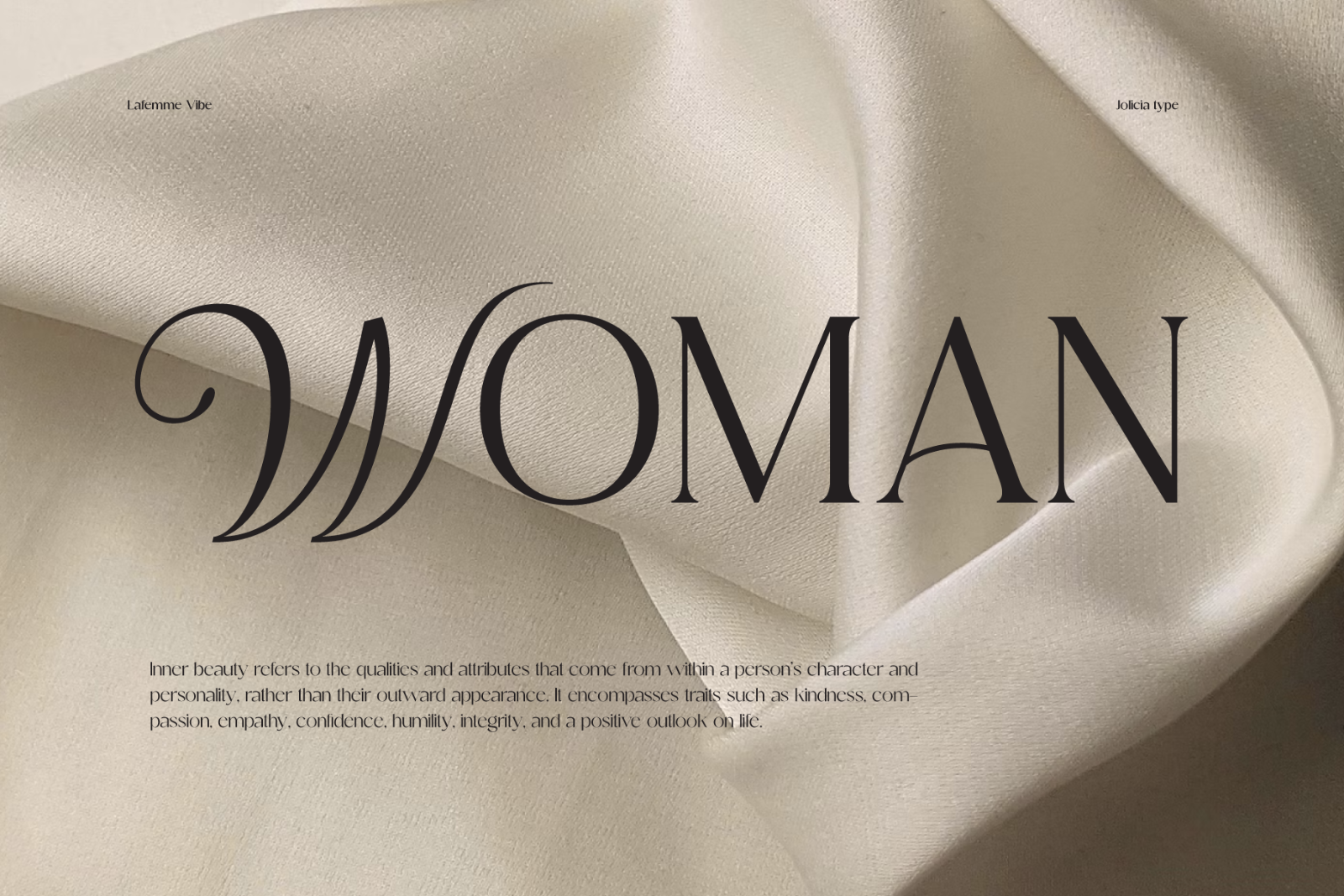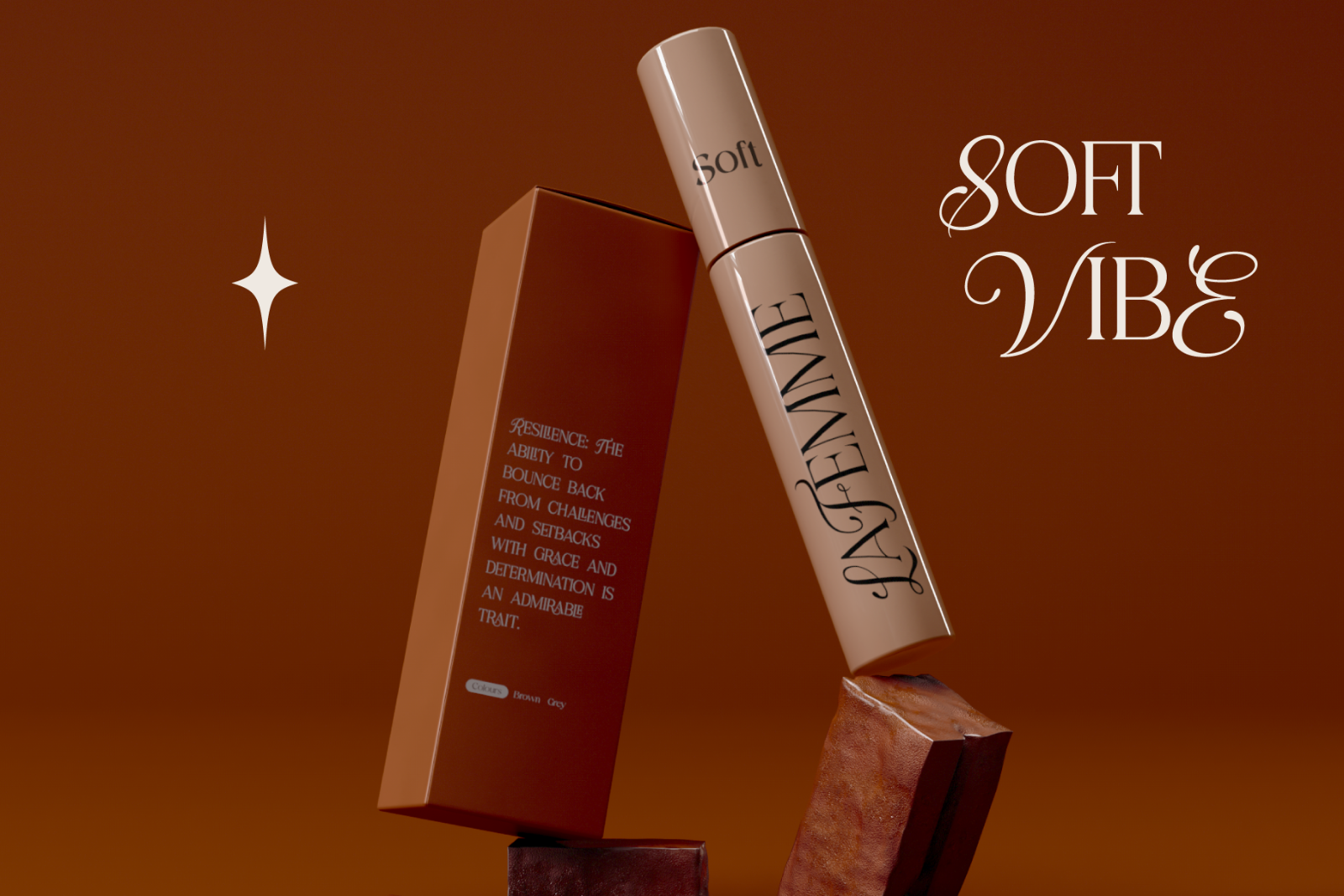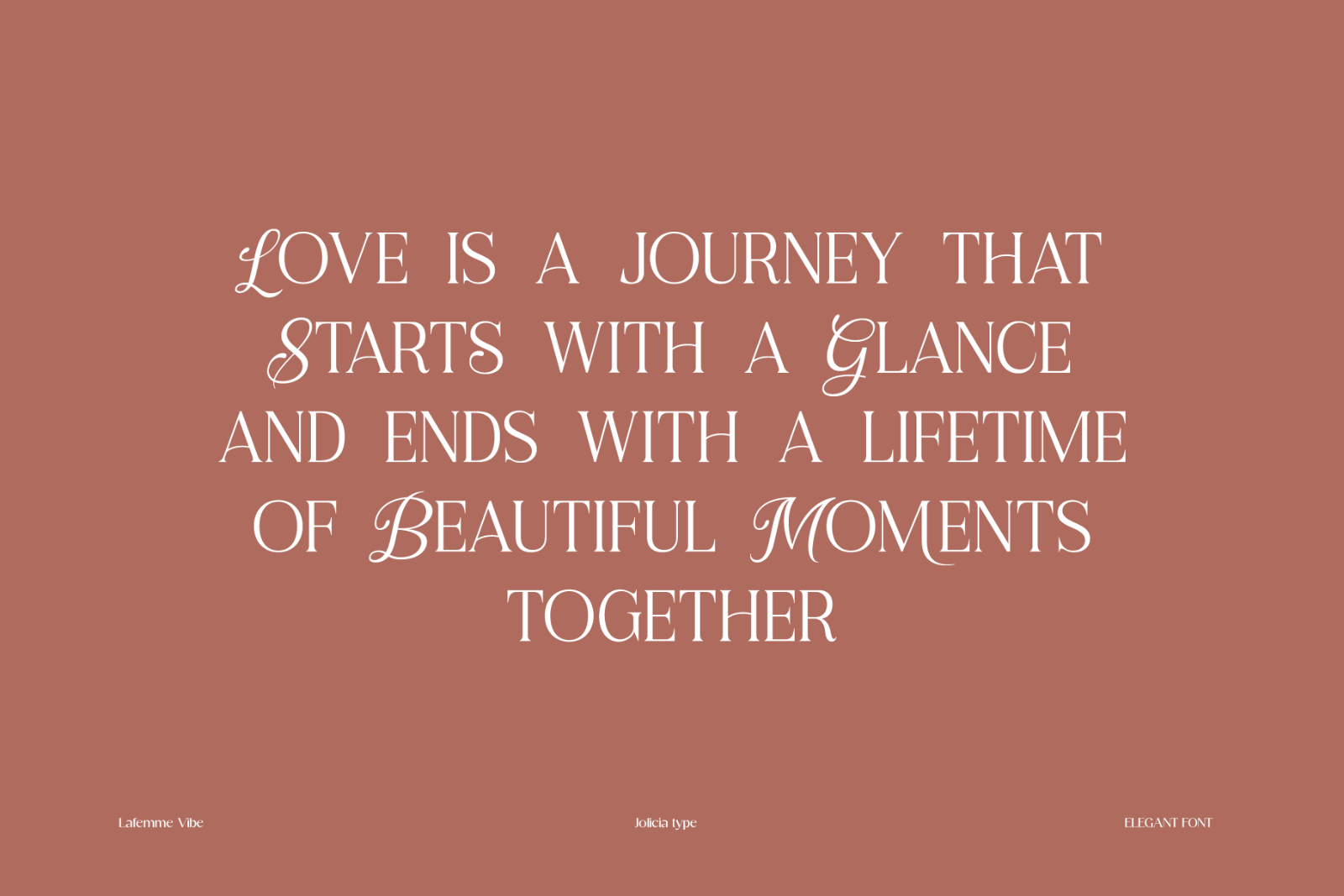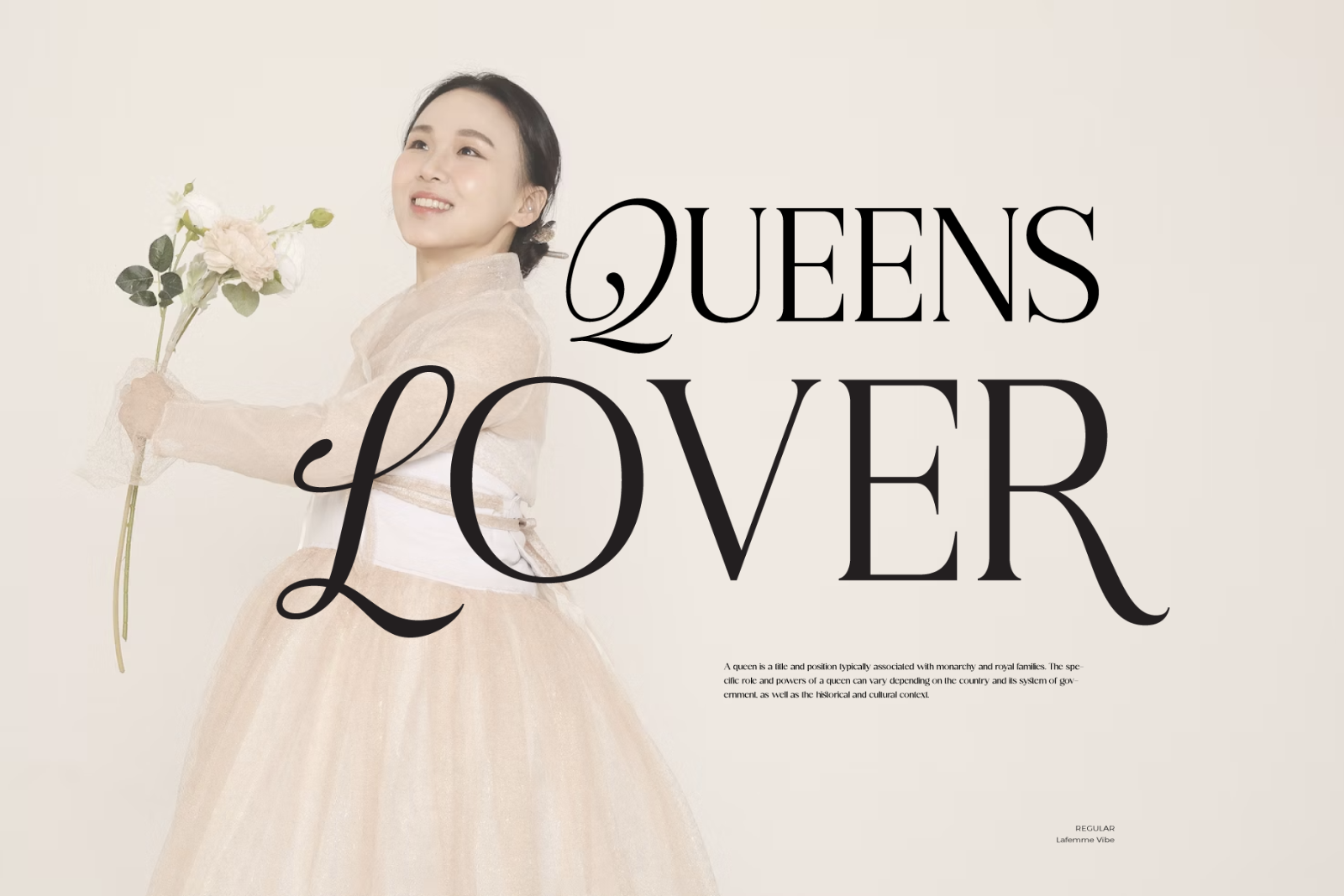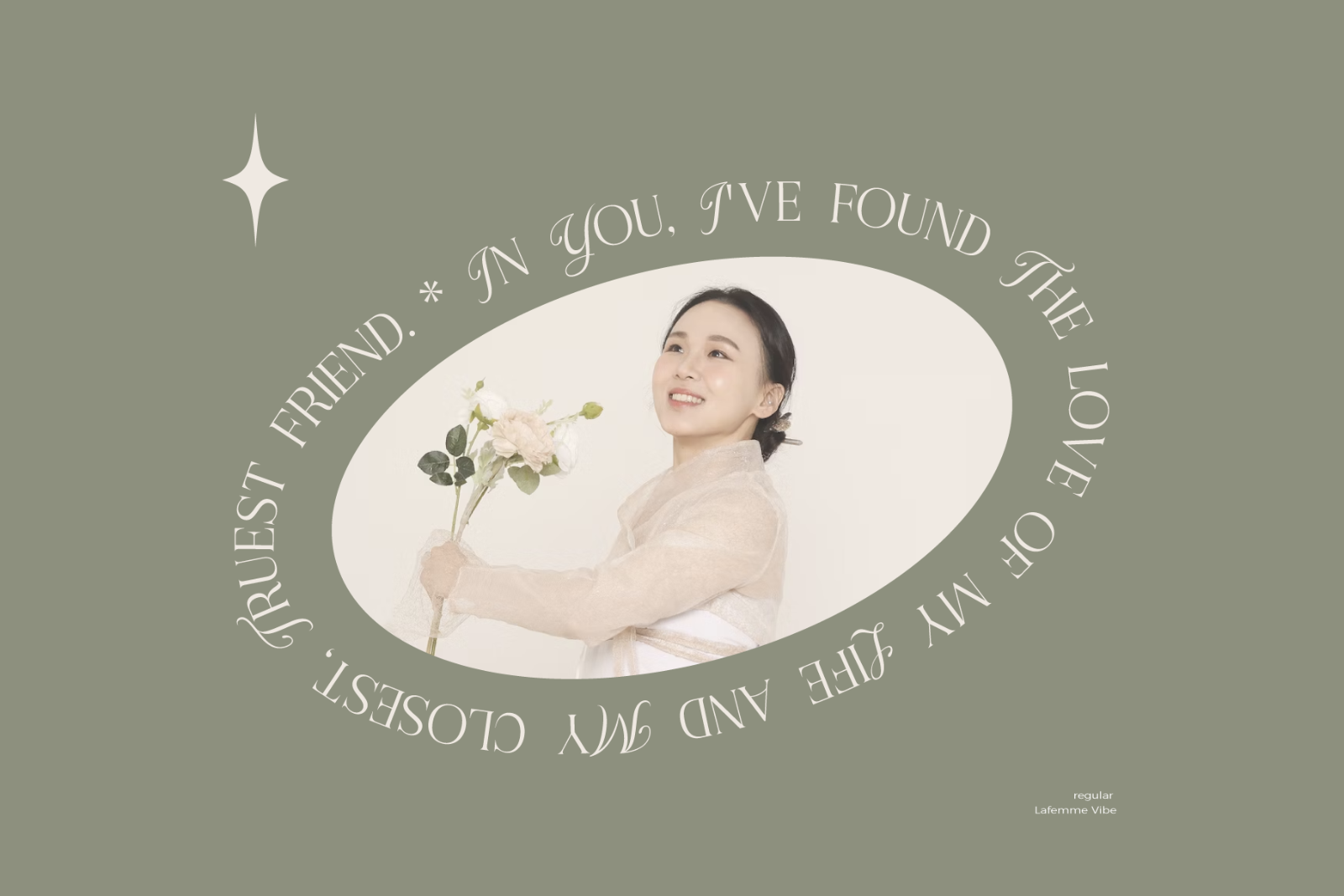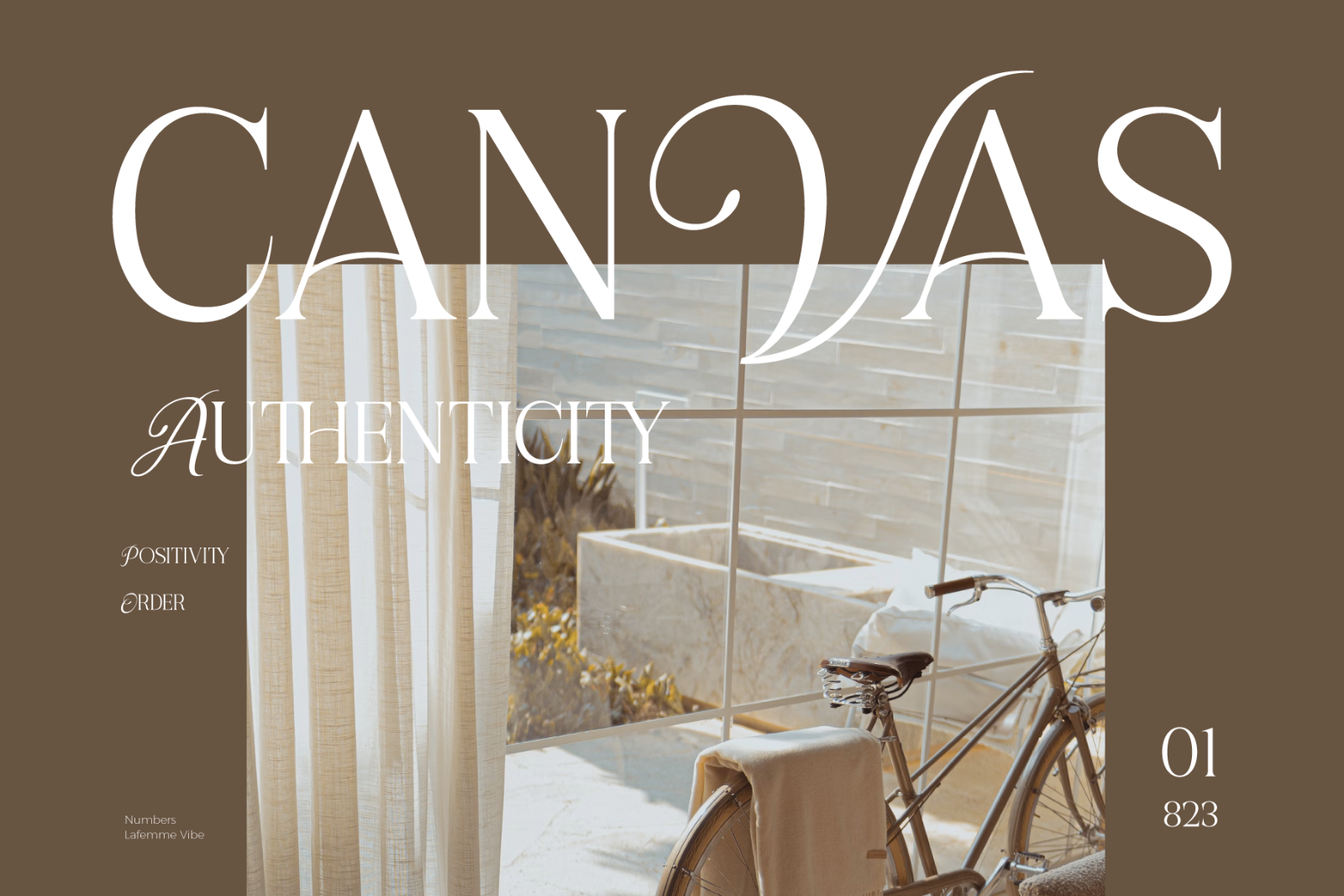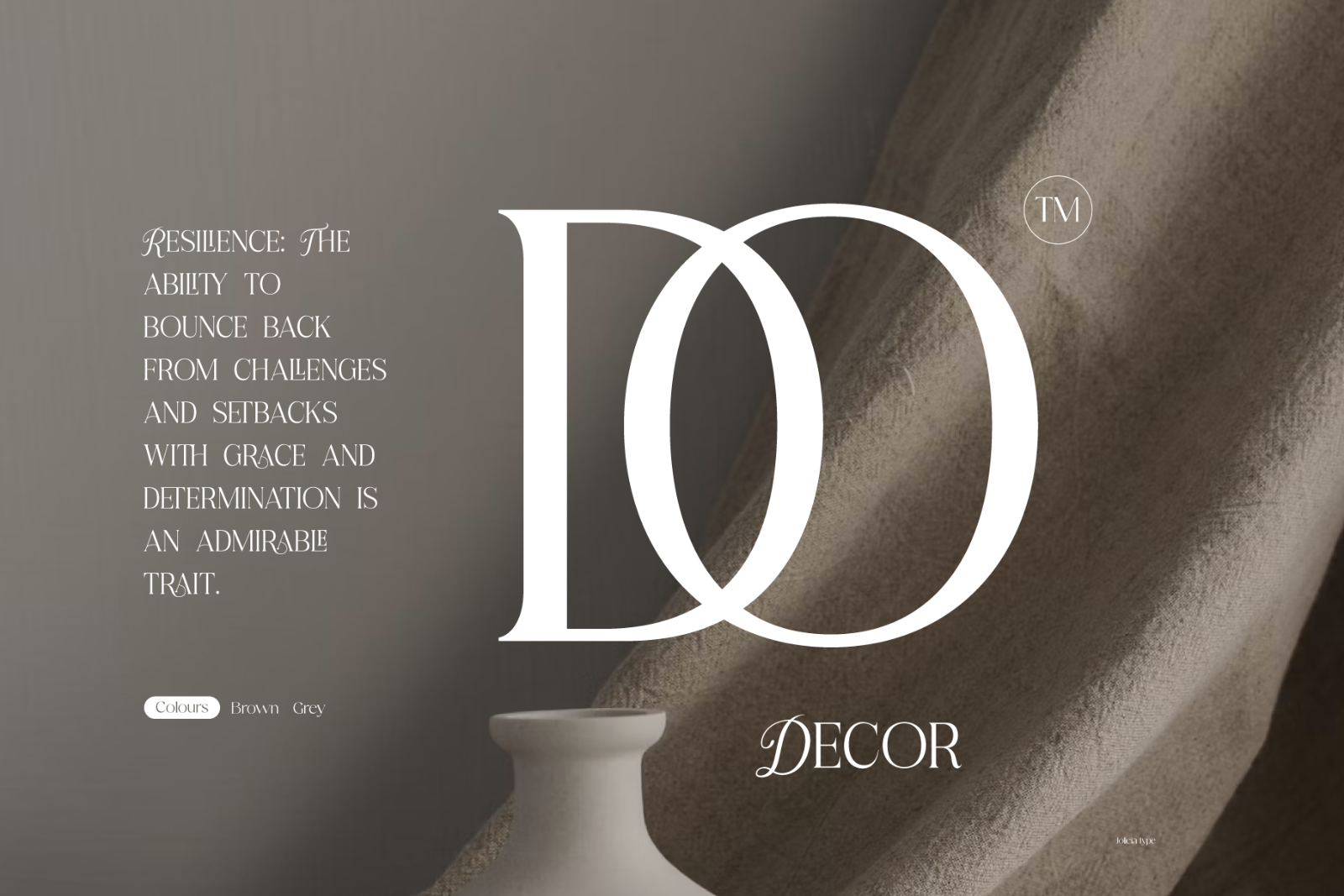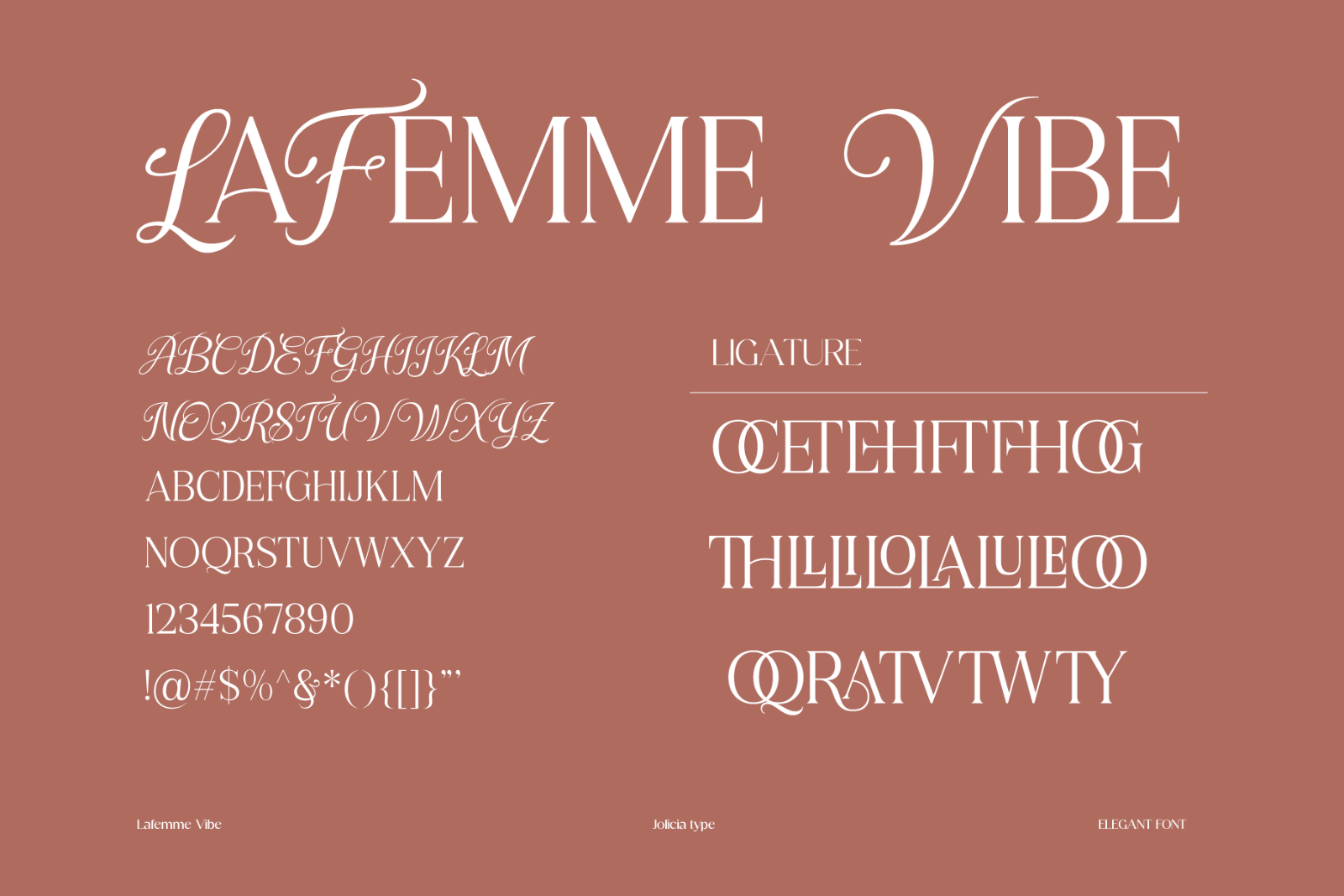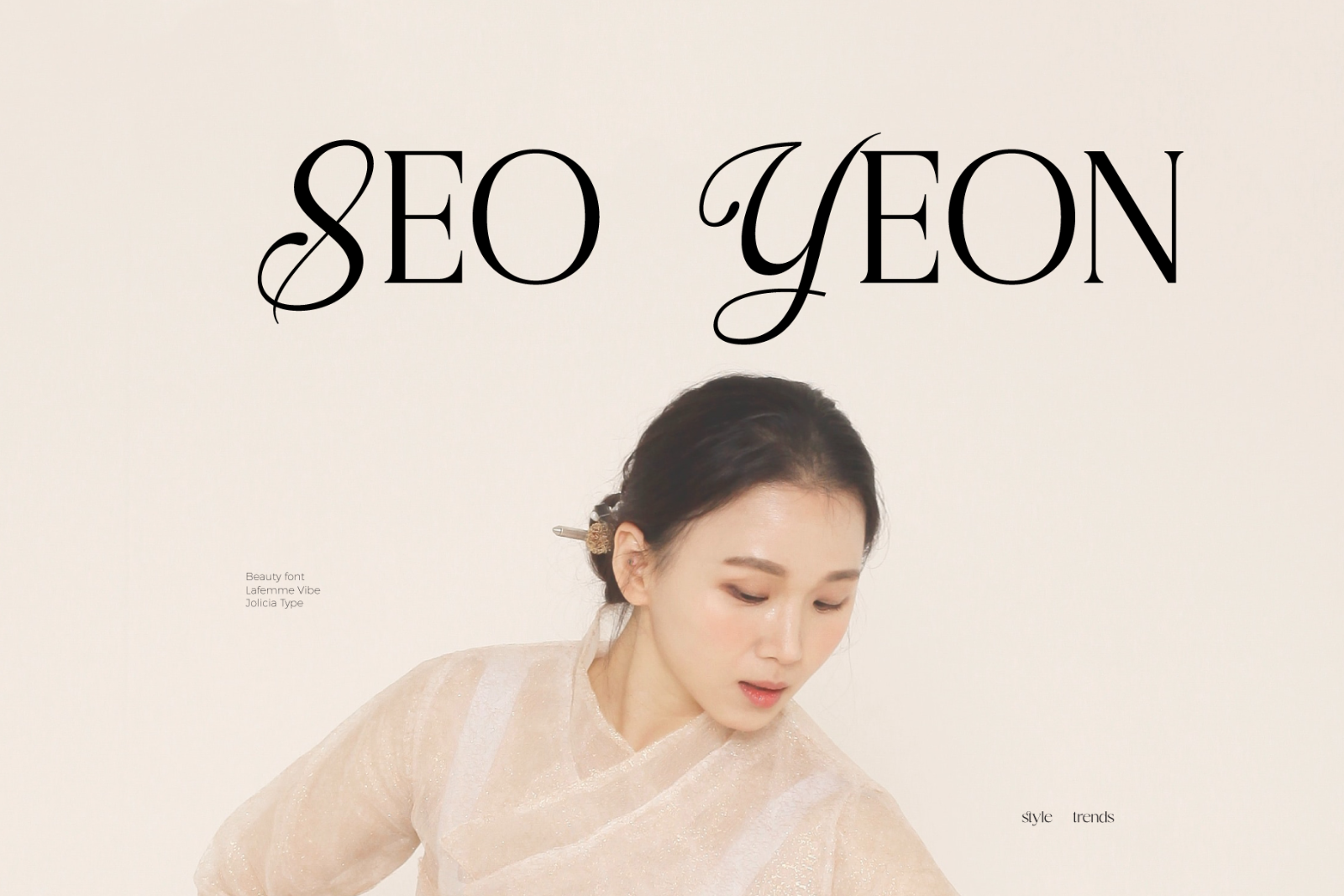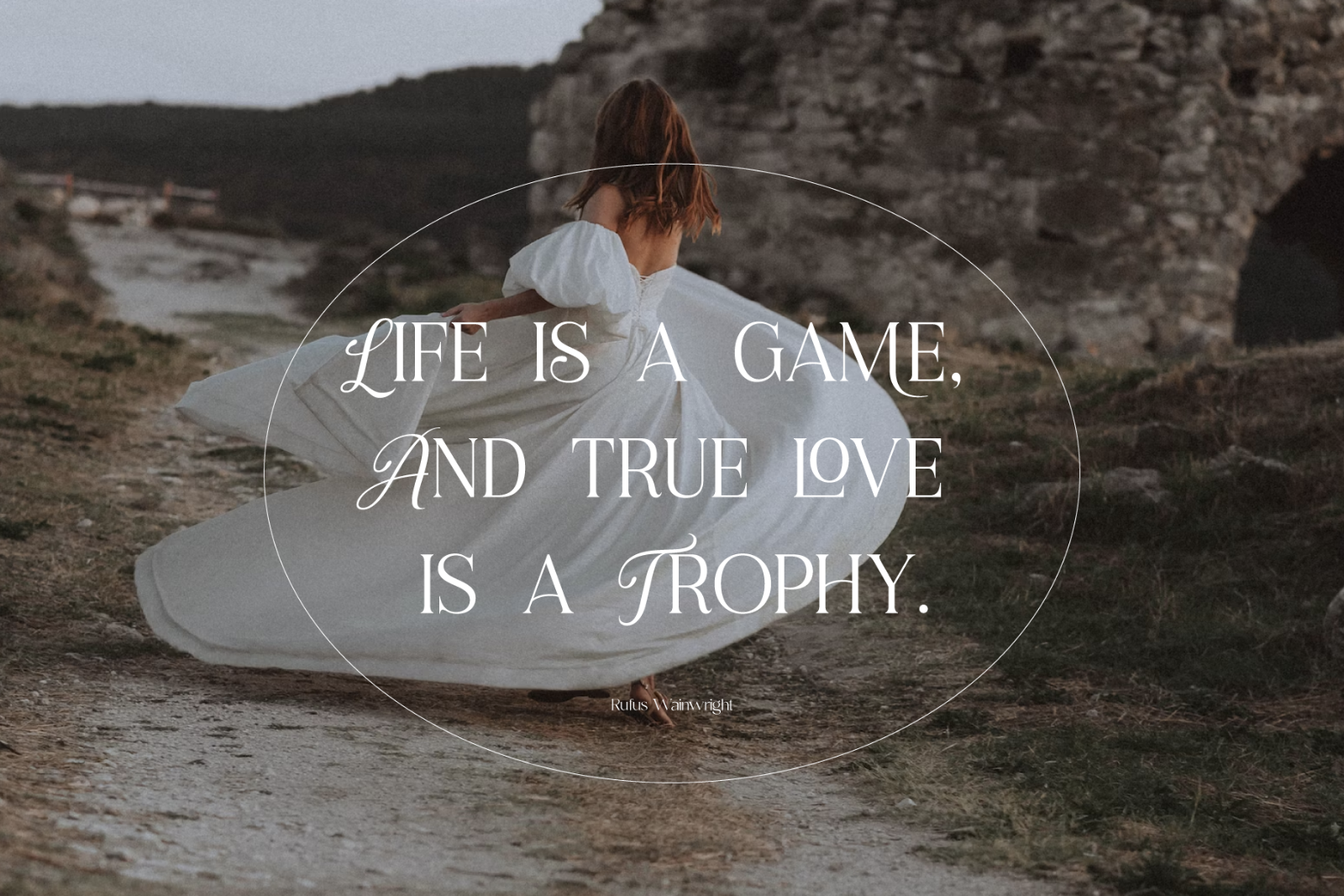
LaFemme Vibe is a conceptual serif font that exudes a modern and elegant aesthetic, tailored specifically for women. Featuring uppercase characters with distinctive curly signatures, LaFemme Vibe combines the following elements to create a unique visual experience:
Classy Serifs: LaFemme Vibe boasts serif characters with soft, graceful serifs that add an element of sophistication to each letterform. Asymmetrical Charm: This font is intentionally imperfect in its symmetry, as if crafted by a gentle, artistic hand. It radiates an inviting and charming quality. Curly Signature Flourish: The curly, signature-like embellishments that adorn the letterforms in LaFemme Vibe infuse a personal and artistic touch. This imparts the sense that each word written with this font is a unique work of art. Modern Harmony: Despite its classical elements, LaFemme Vibe maintains a modern sense of harmony. The letters appear assertive yet gentle, making it perfectly suited for contemporary women seeking timeless elegance. Elegance and Chic: LaFemme Vibe embraces an elegant and chic aesthetic that is particularly fitting for products or designs targeted towards women who aspire to exude luxury and style.
LaFemme Vibe is a typographic masterpiece created to bring a modern and elegant sensibility to women who appreciate beauty in every detail. It’s a font that effortlessly blends classic charm with contemporary allure, making it an ideal choice for a wide range of design projects aimed at celebrating the essence of femininity.